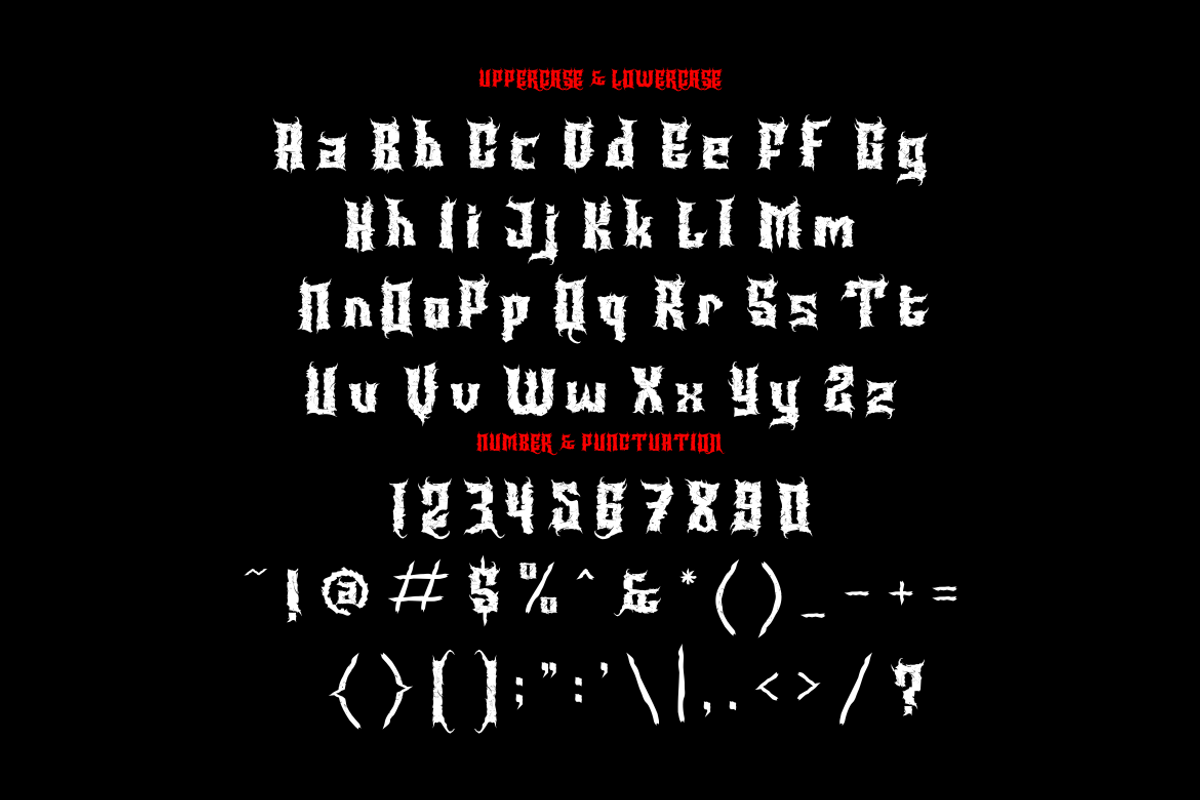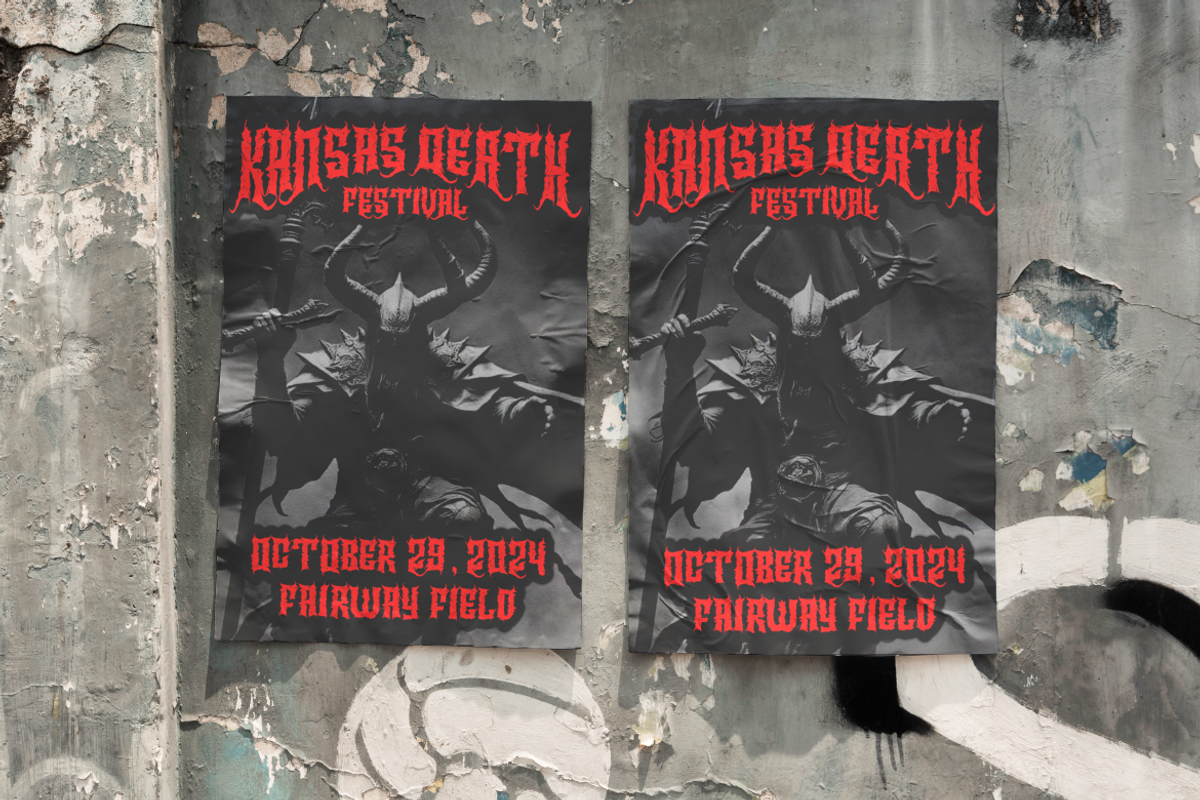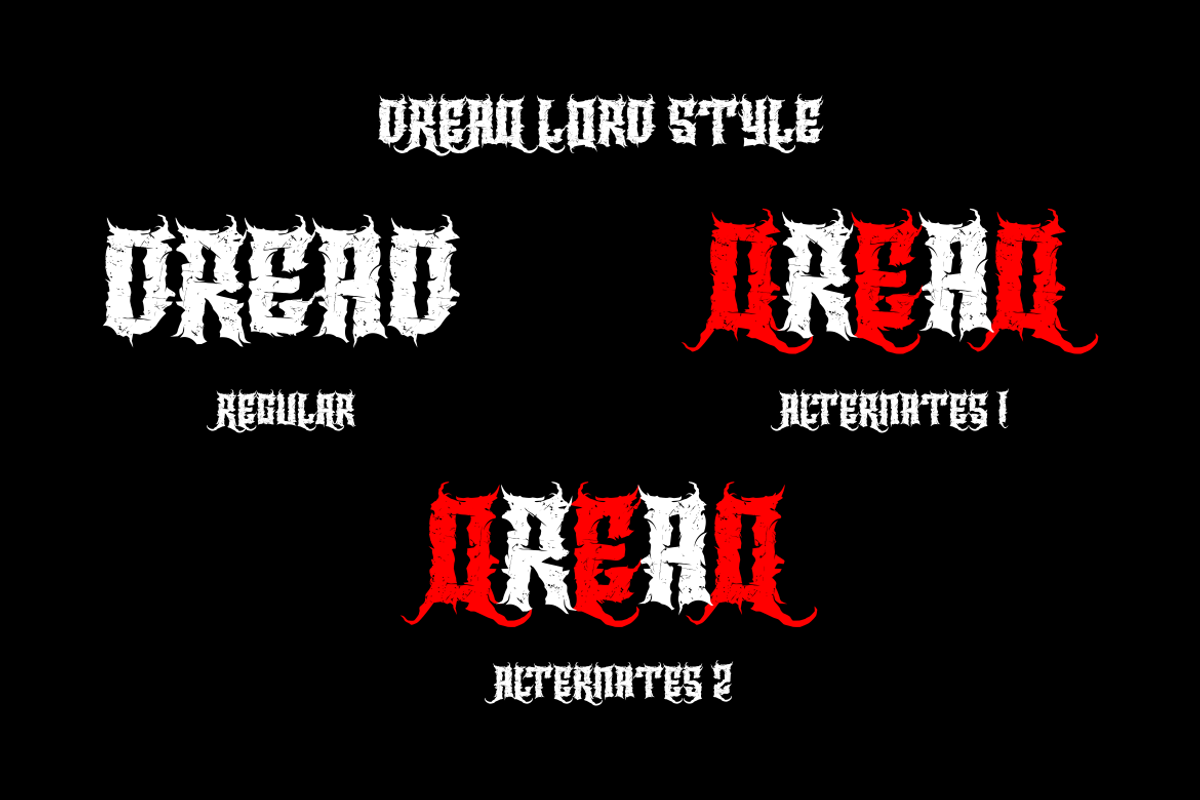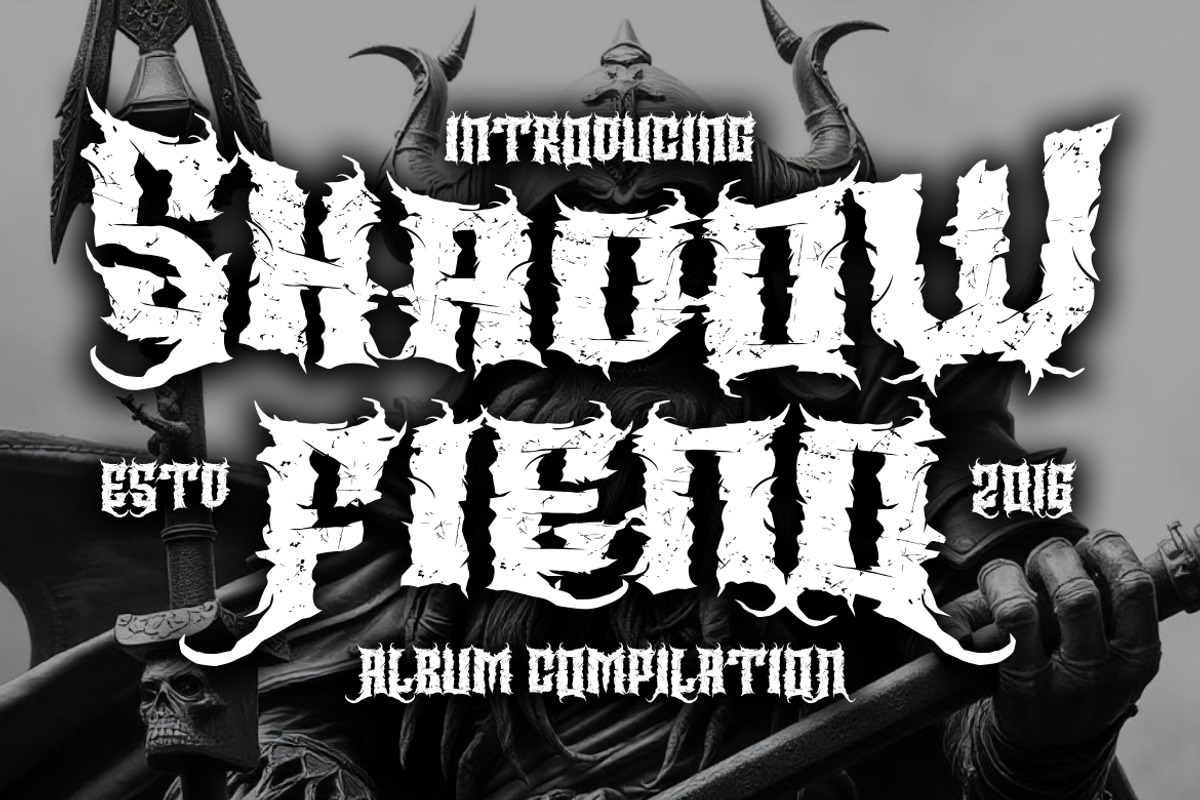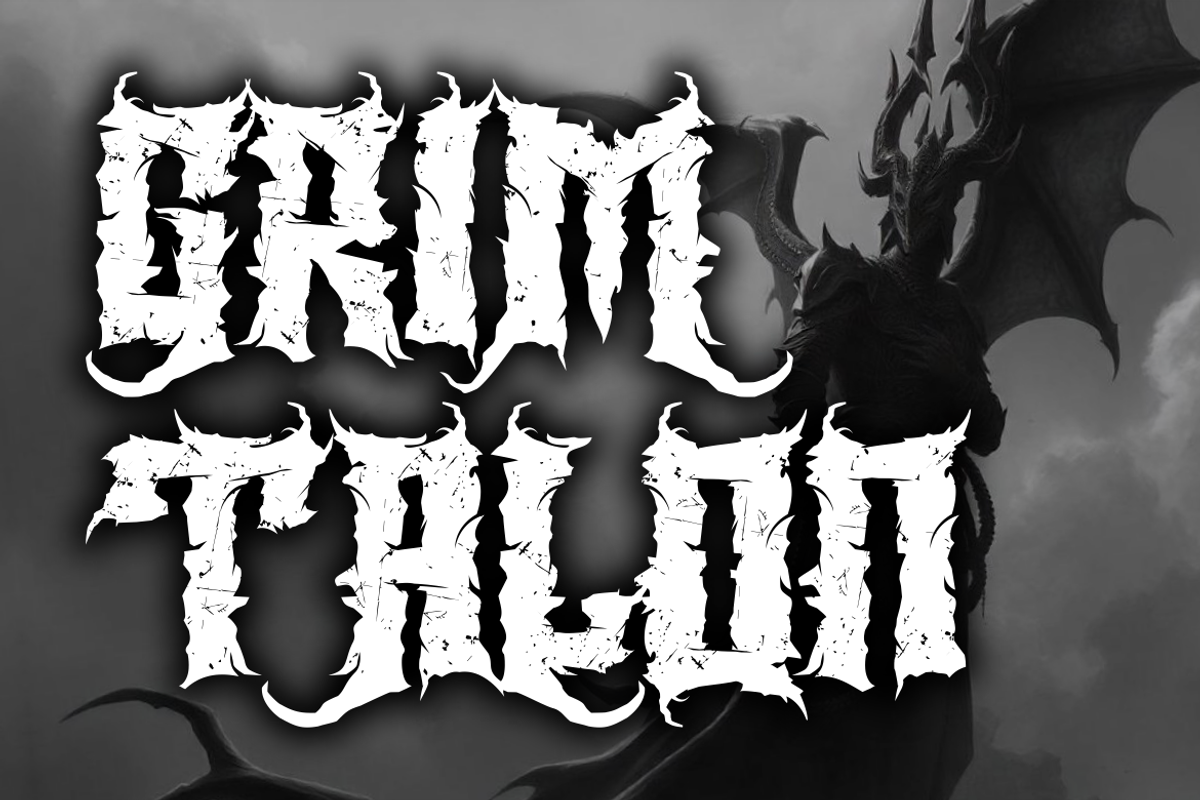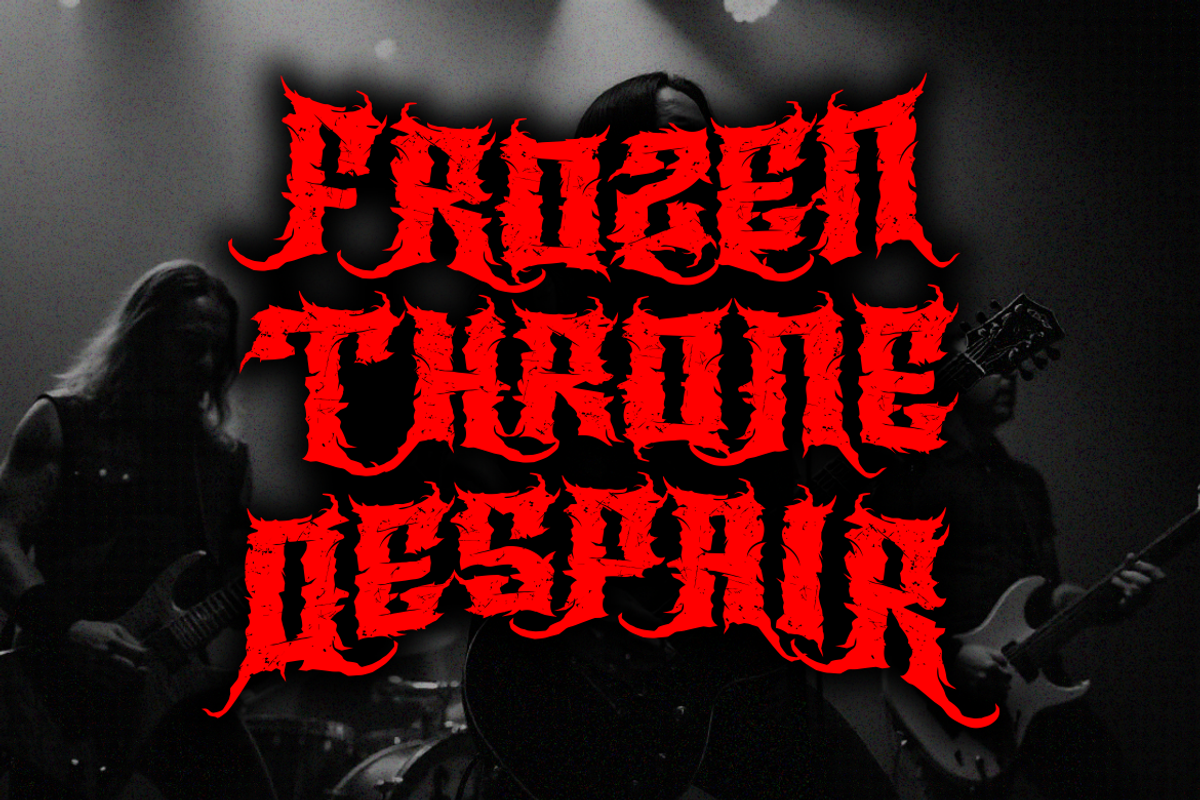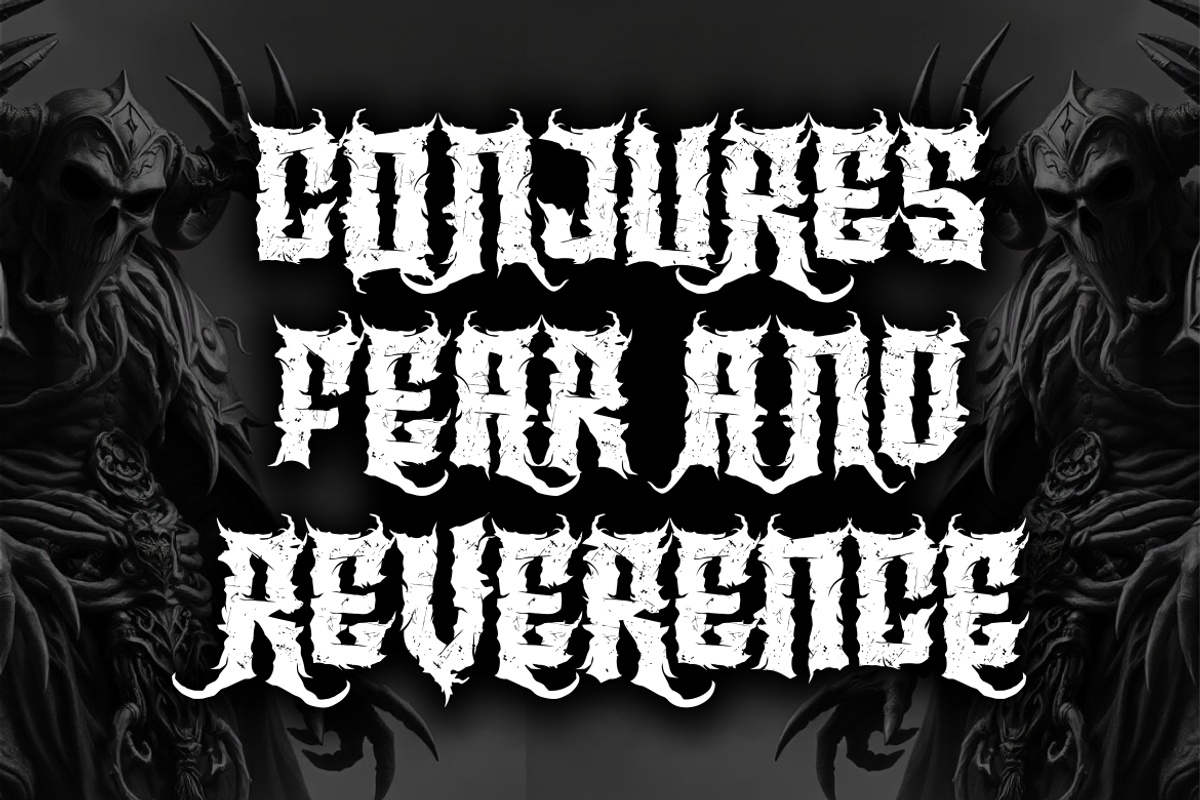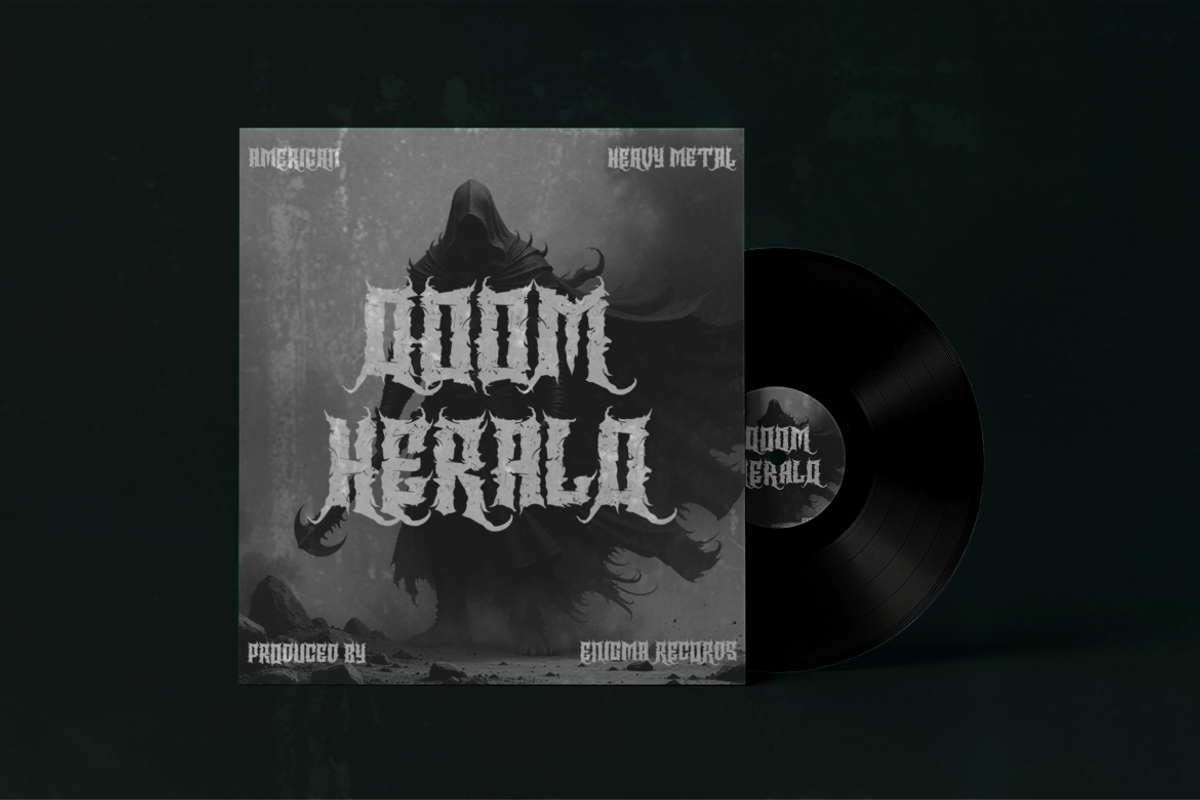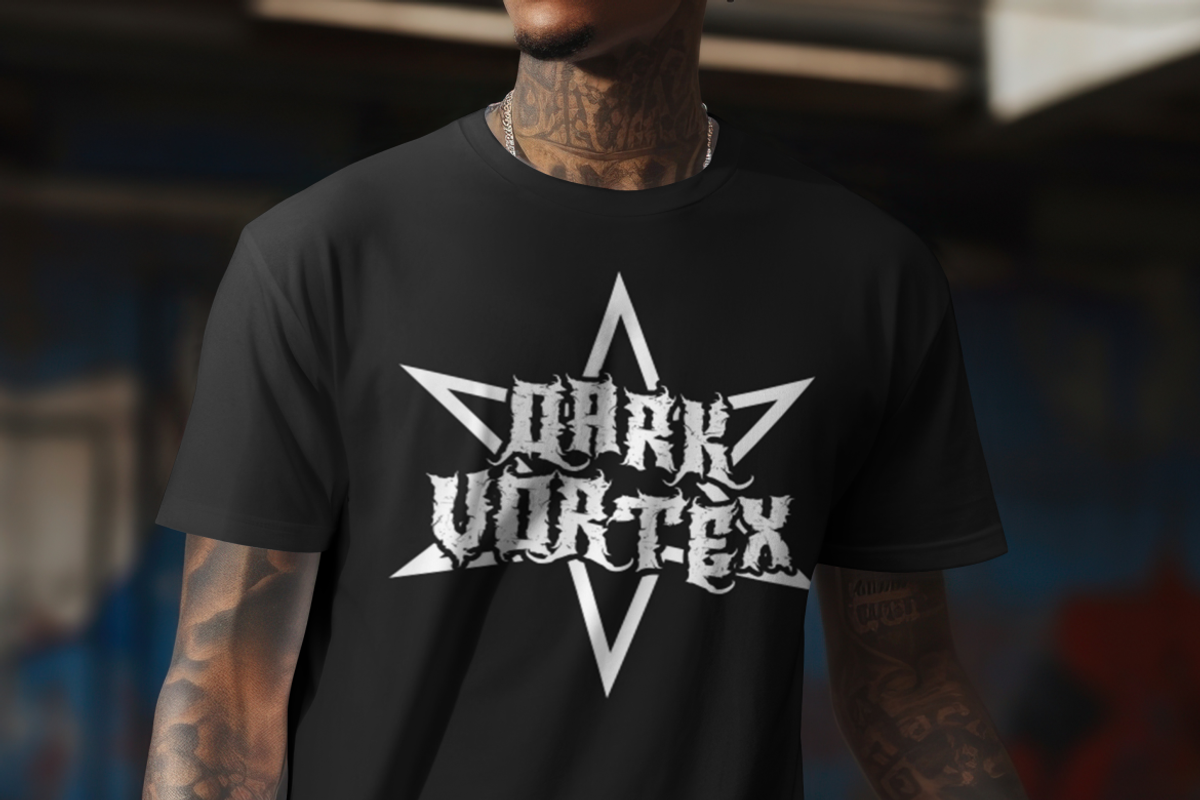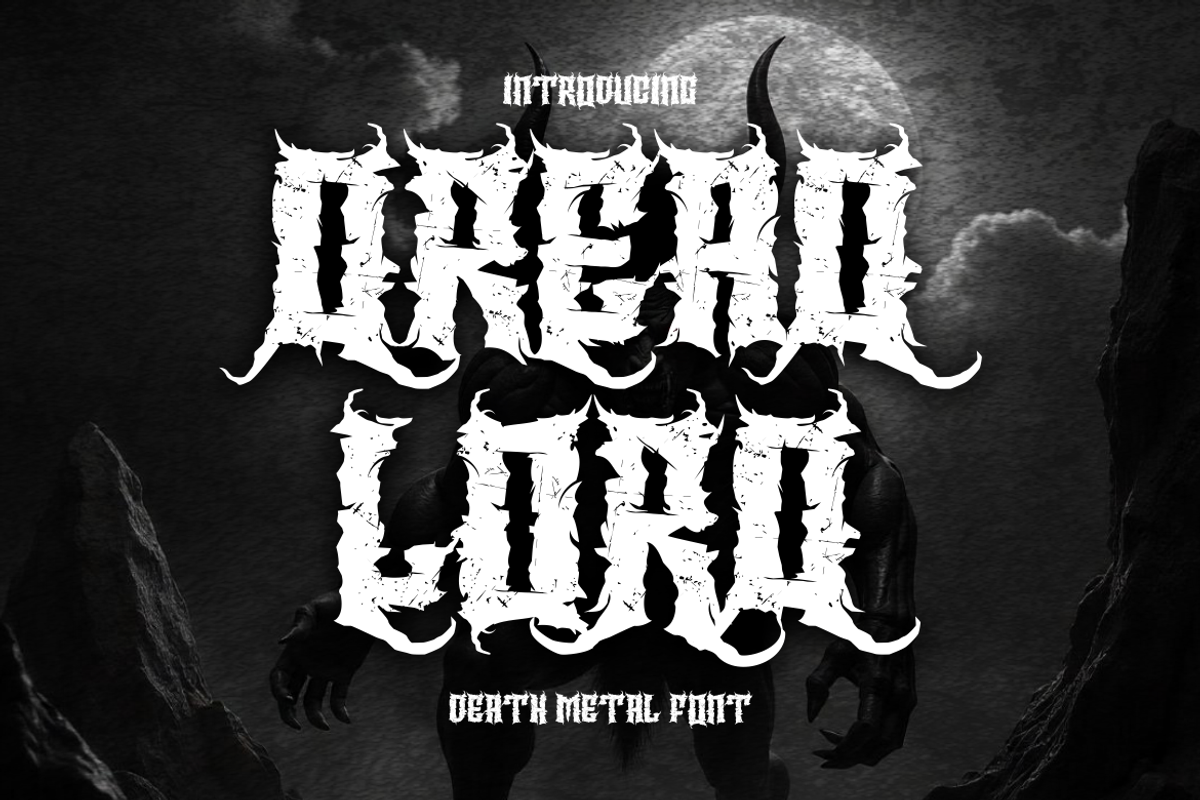
Dread Lord - Death Metal Font
Introducing Dread Lord - Death Metal Font, a spine-chilling typeface inspired by the raw, chaotic energy of death metal and black metal aesthetics. The font features jagged, irregular edges resembling cracked surfaces, with sharp extensions and sinister detailing, making it ideal for intense and dark design themes. Its distressed texture evokes feelings of chaos and rebellion, perfectly suited for projects that embrace the underground metal scene. The bold and sharp lettering commands attention, ensuring your designs stand out with a menacing edge.
The monochromatic background enhances the font’s haunting presence, depicting a dark figure silhouetted against a full moon and eerie clouds. This grim setting amplifies the dark, gothic tone, making Dread Lord the ultimate choice for band logos, album covers, horror-themed posters, or any design requiring a brutal, metal-inspired aesthetic. Let this font bring raw power and darkness to your creative projects, capturing the essence of heavy music and gothic artistry.